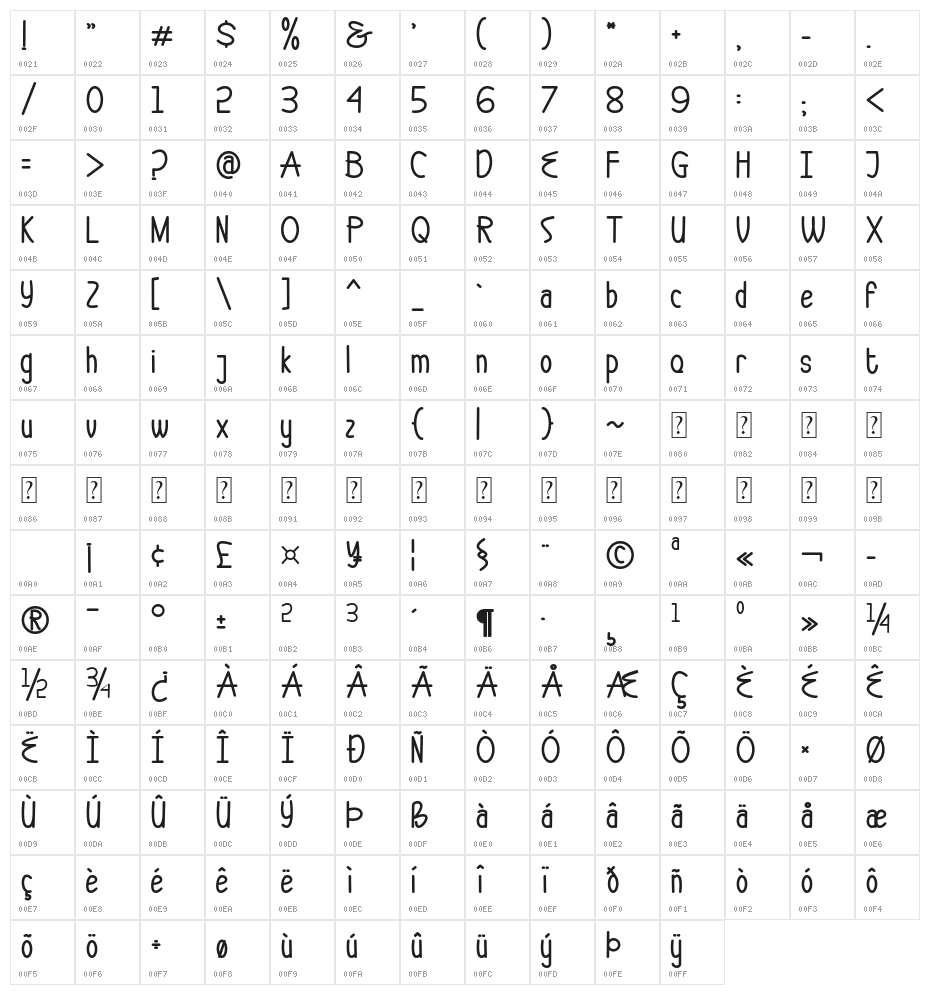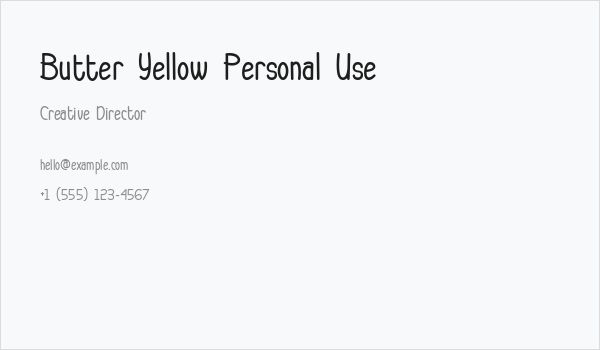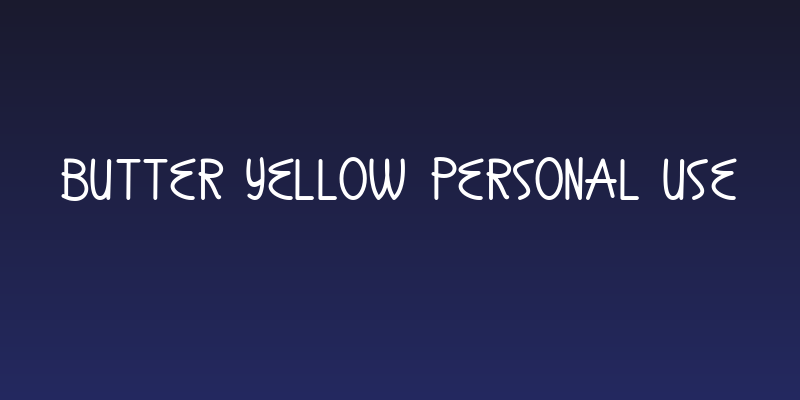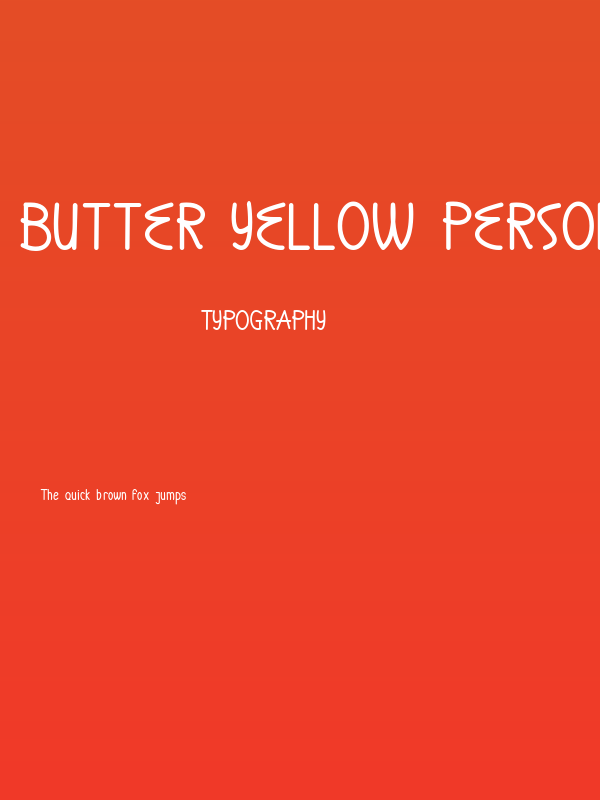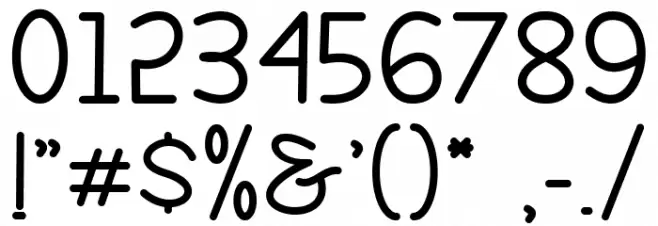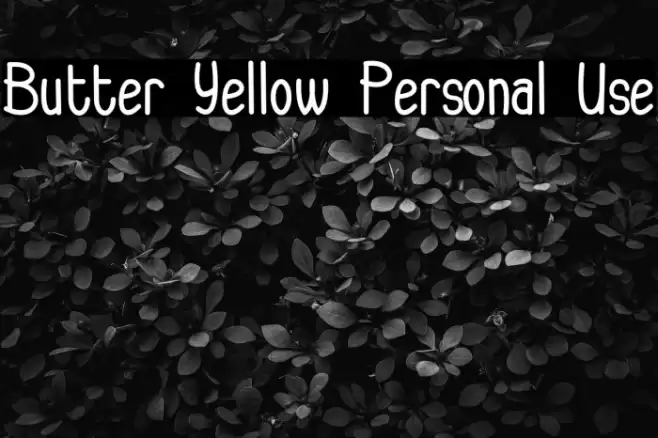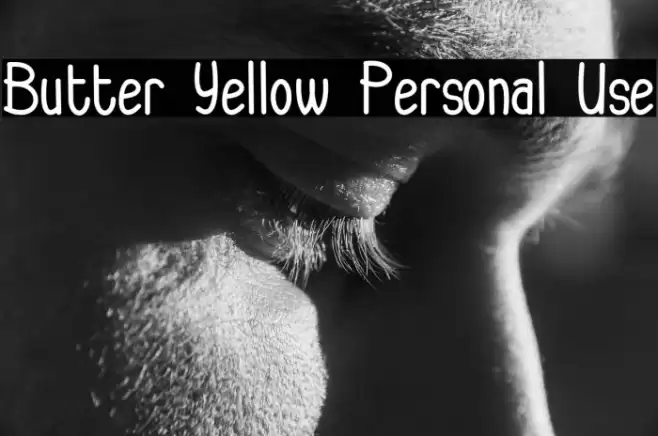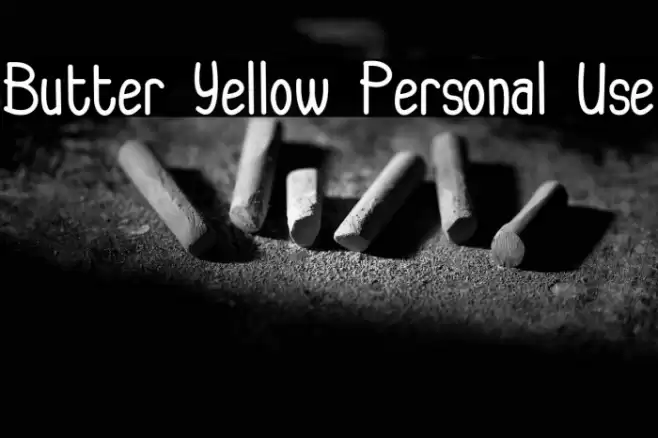
Butter Yellow Personal Use Font
Butter Yellow Personal Use Description
This font features a playful and whimsical style with rounded edges and a hand-drawn appearance. The characters are slightly irregular, adding to its charm and informal feel. The uppercase letters are tall and narrow, while the lowercase letters maintain a consistent height, creating a balanced look. The numerals and special characters follow the same playful design, making the font suitable for creative and casual applications. Its unique style is perfect for projects that require a touch of personality and fun.
| Use Case | Logos, Posters, Greeting Cards |
| Proposed Projects | Ideal for children's books, greeting cards, playful branding, and creative posters. |